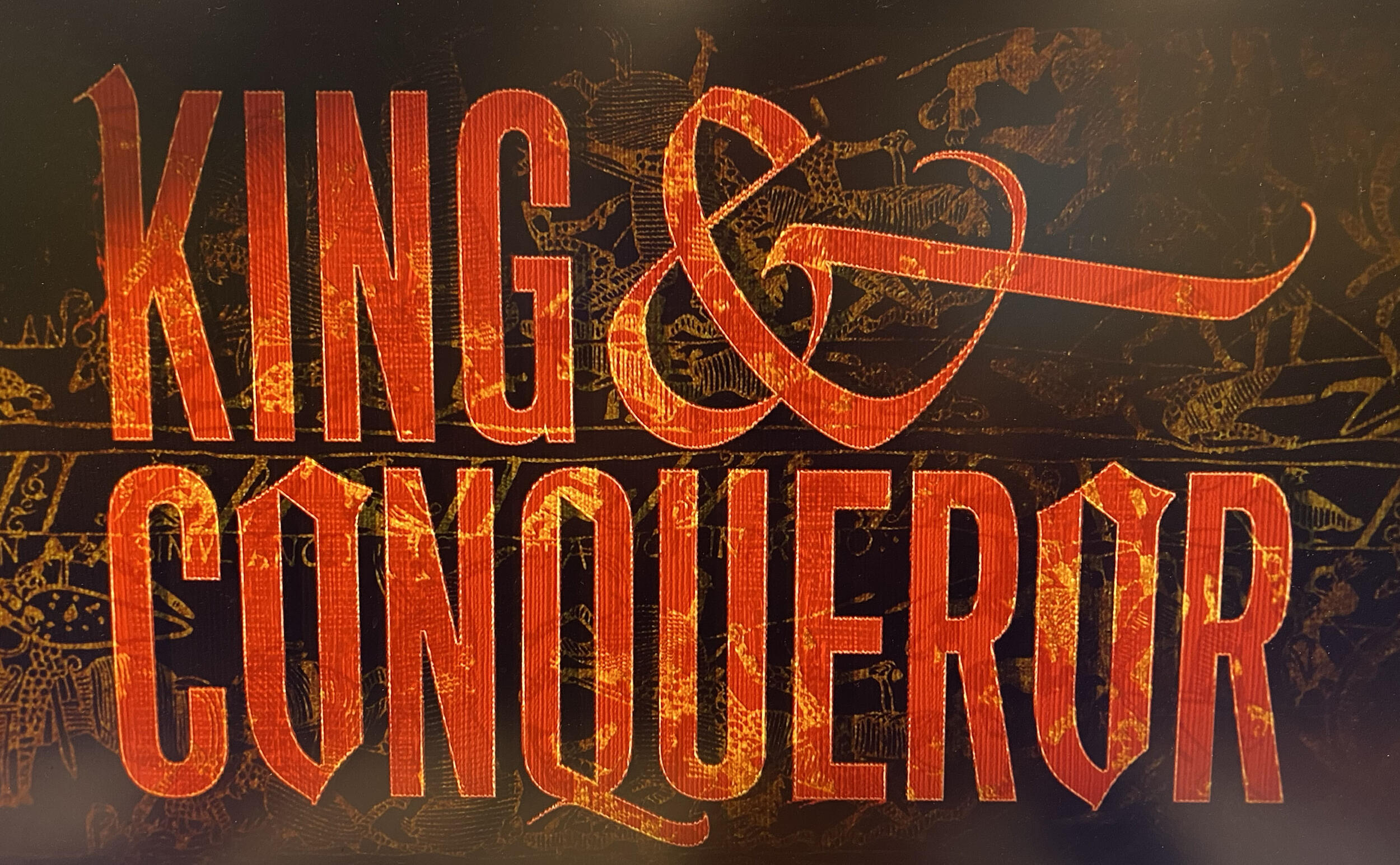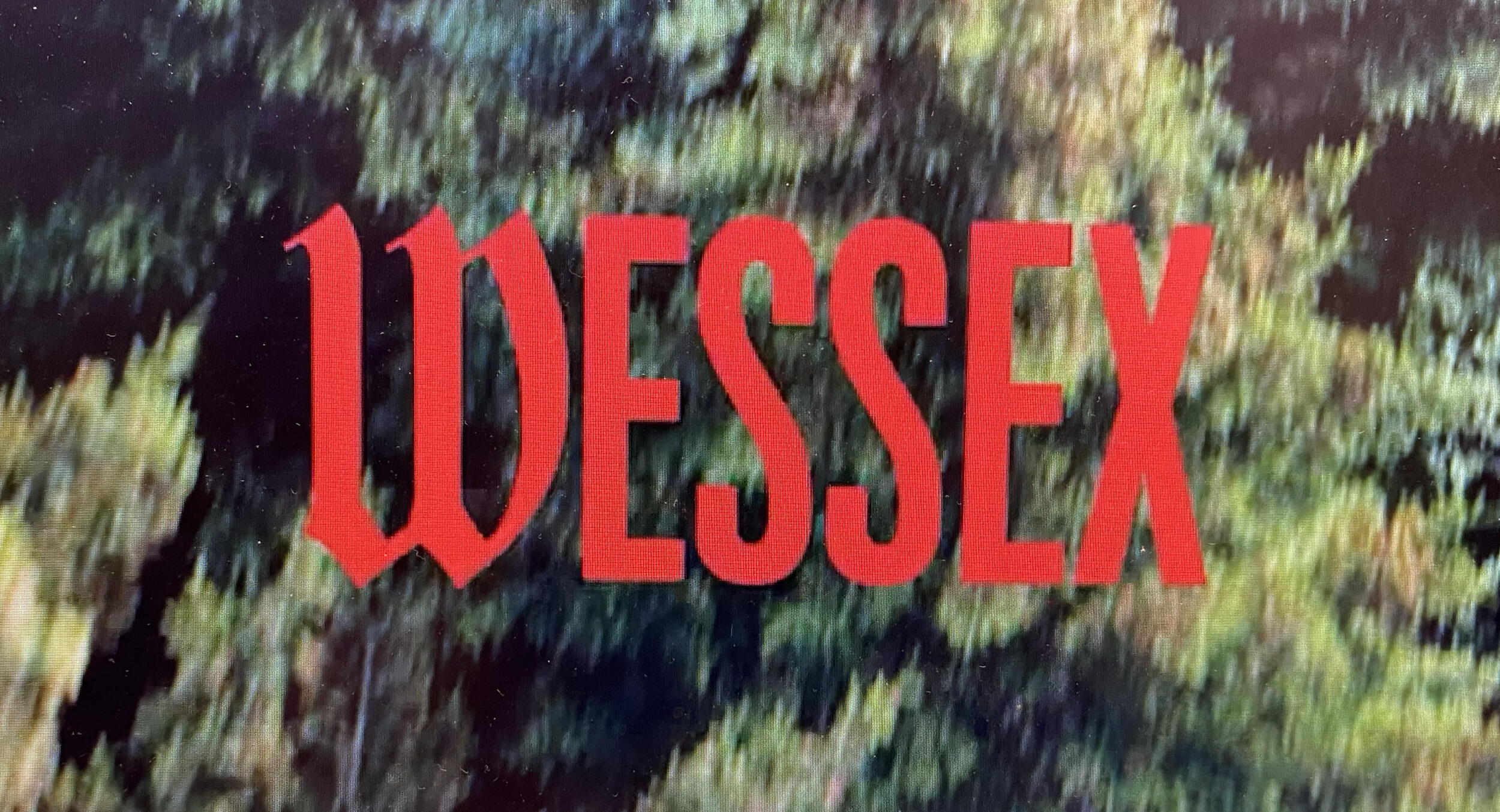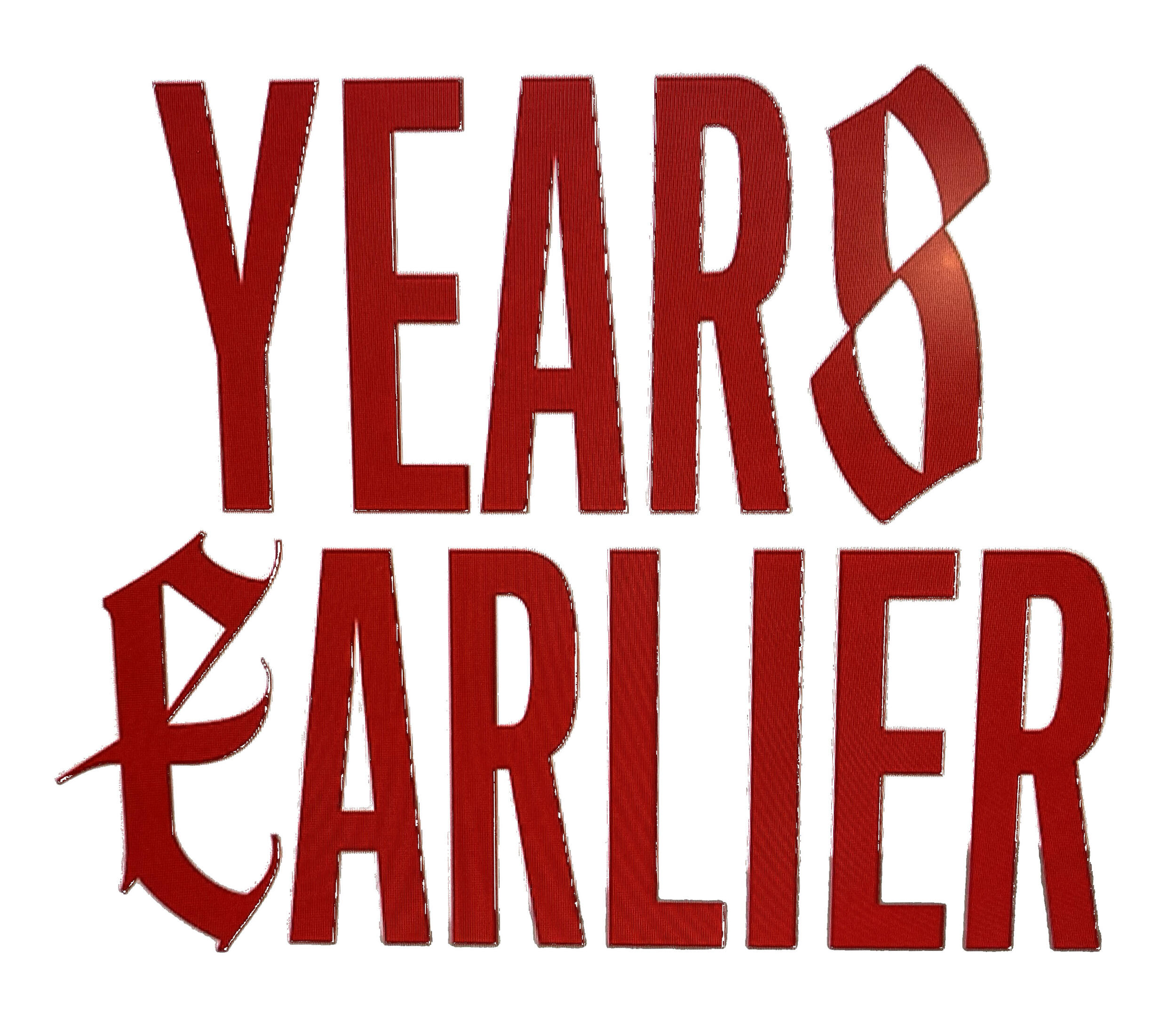
What two fonts are used in the title cards of the TV show King & Conqueror?
I'm looking for an identification of the fonts used in the title cards for the 2025 BBC television show King & Conqueror. It's a really nice type treatment made by combining a straightforward condensed sans-serif with an unusually condensed blackletter font for just a few letters here and there. See the three samples attached below. I've tried all the font matcherators and store filters with no success, especially on the blackletter. The sans-serif may be something like FF Nort Headline; I'm less concerned about an exact ID on that one. But I can't find anything even close to the blackletter, and it's driving me crazy — it's such a pretty font! You can see by the repeated O's in "CONQUEROR" that it's (probably) a font and not hand-drawn. Close matches welcome.
Looking at letters like the "K" in particular, I suspect you're right.